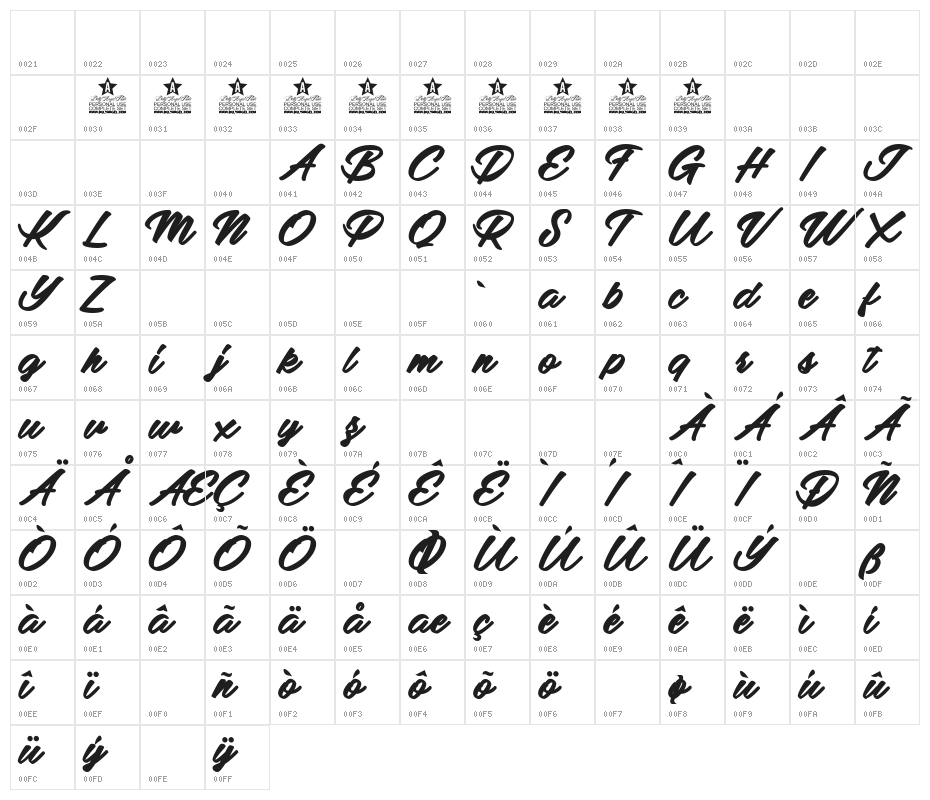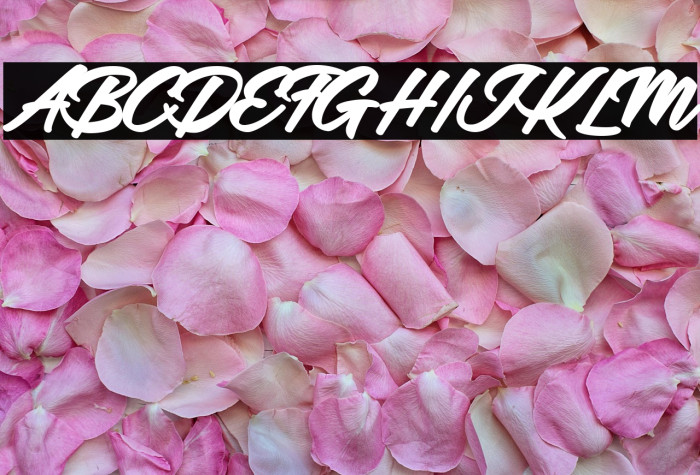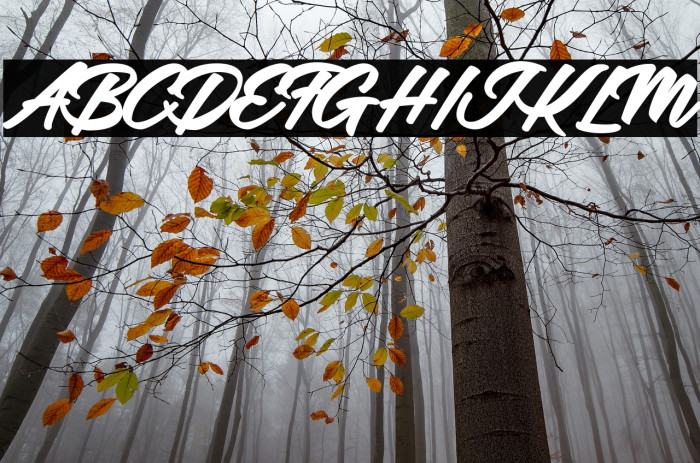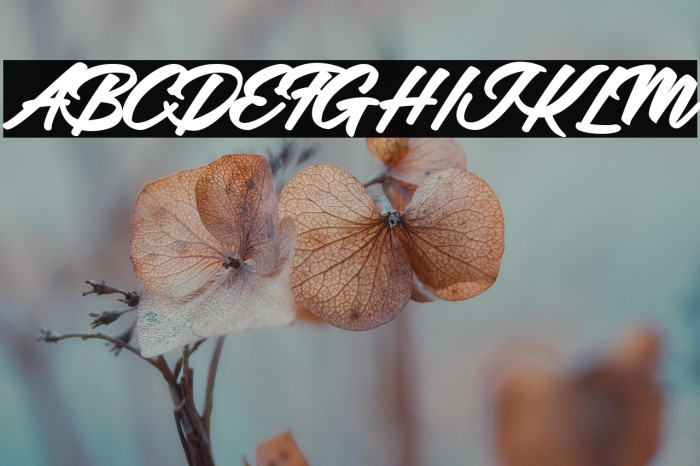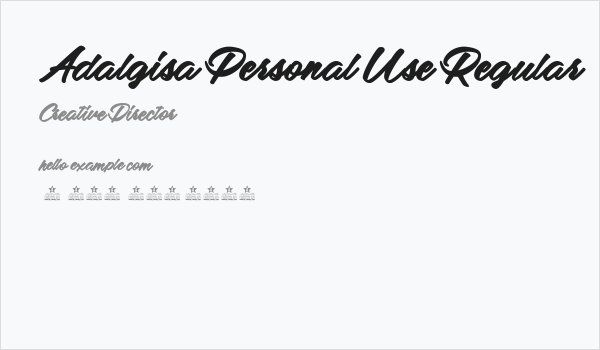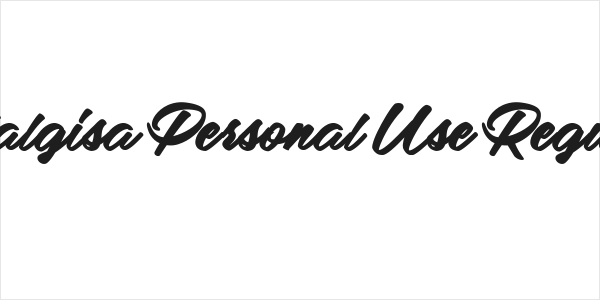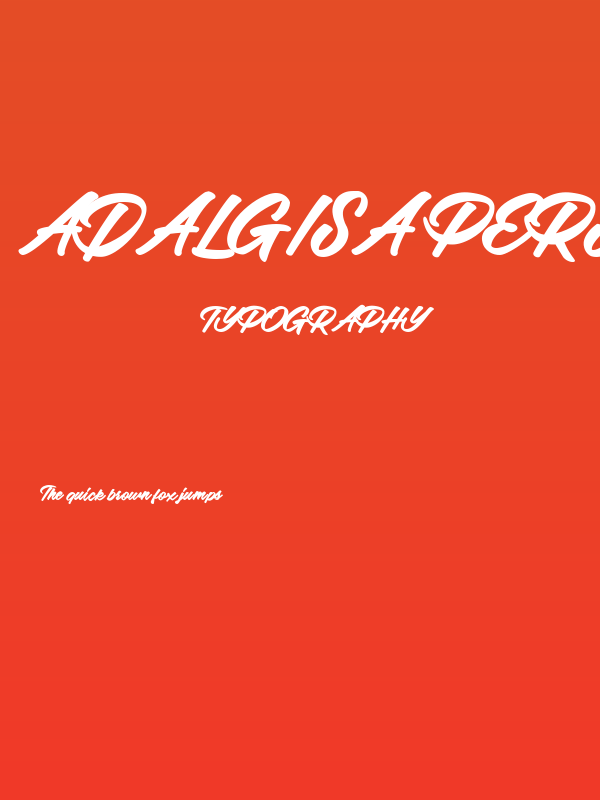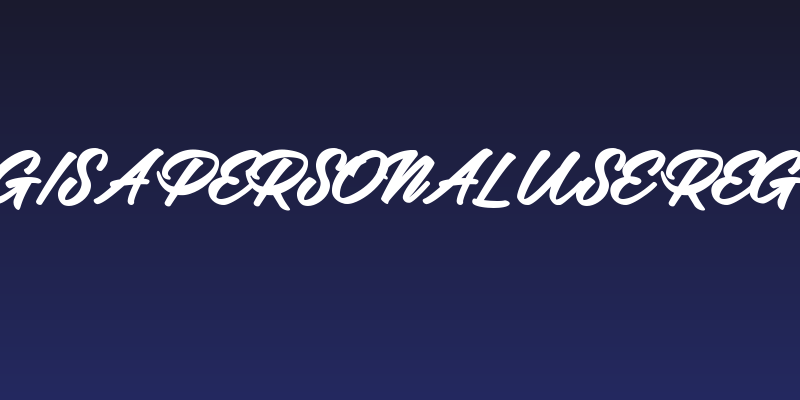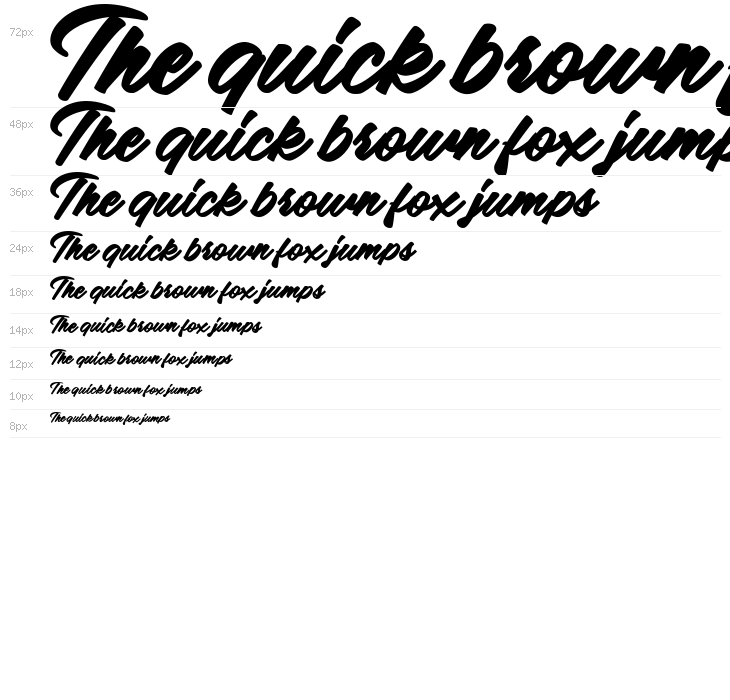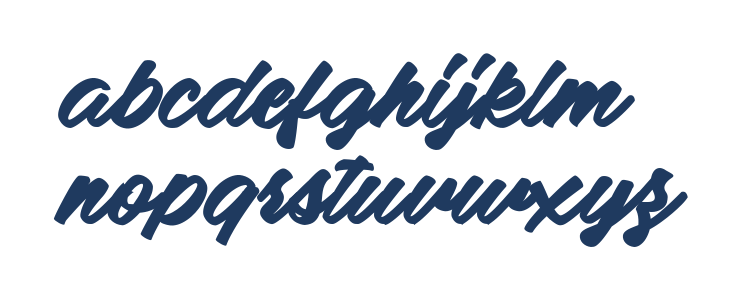
Adalgisa Personal Use Regular Font
Adalgisa Personal Use Regular Description
This font features a bold, cursive style with smooth, flowing lines that create a sense of elegance and fluidity. The uppercase letters are slightly more elaborate, with sweeping curves and a consistent slant that adds a dynamic feel. The lowercase letters maintain the same slant and are closely connected, enhancing the script-like appearance. The overall design is bold and impactful, making it suitable for projects that require a strong visual presence. The characters are well-balanced, with consistent stroke thickness that provides a harmonious look across the entire alphabet.
| Use Case | Logos, Headlines |
| Proposed Projects | Ideal for wedding invitations, branding, logos, and decorative headings. |